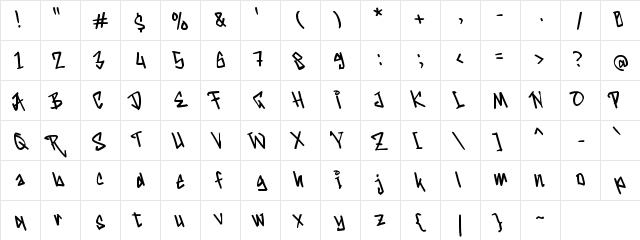
g Graffitian Regular Free Font
g Graffitian Regular
Designer: Wahyu Eka Prasetya
Design Context for g Graffitian
g Graffitian is a composed and adaptable typeface that performs quietly and consistently across a wide range of design contexts.
Pro Tip: Use g Graffitian in both headline and body roles to test its range before committing to a single application.